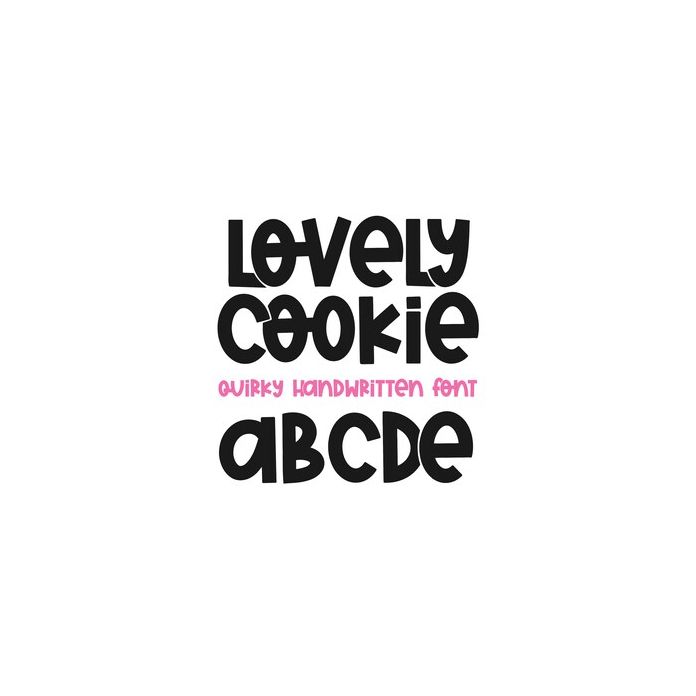
Lovely Cookie Font
Lovely Cookie is a bold font with a lot of fun interlocking letters pairs! This font is perfect for crafts, shirts, stickers and more!